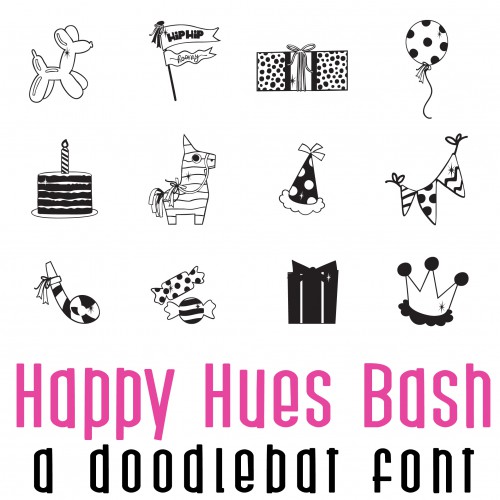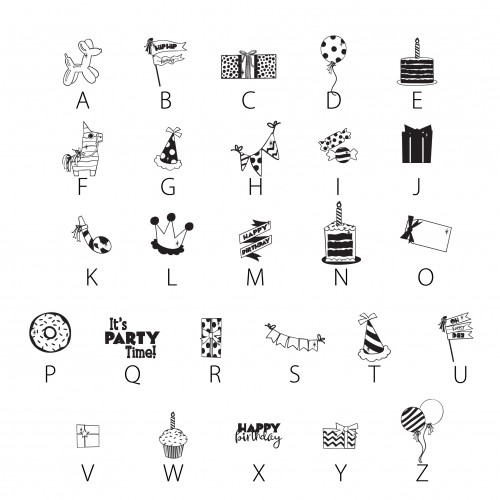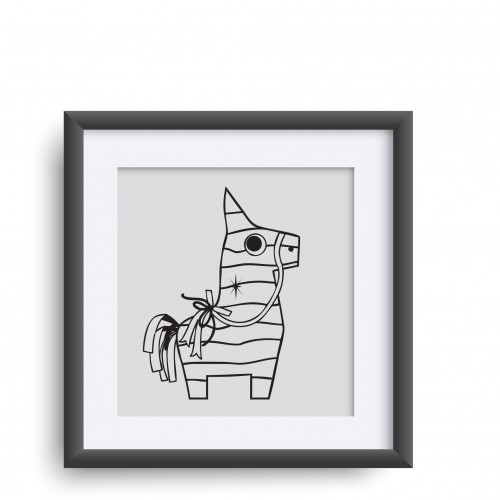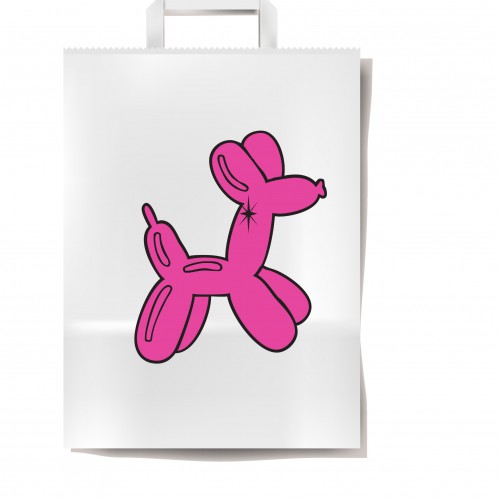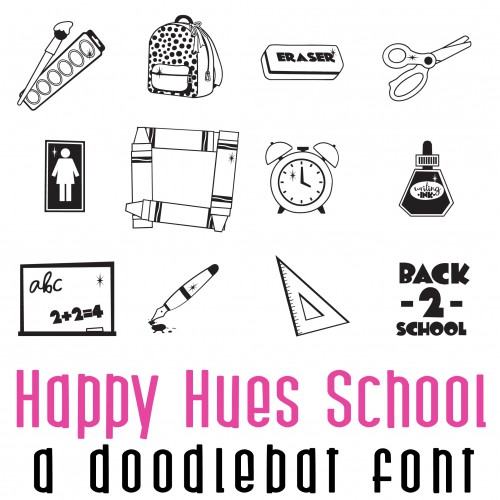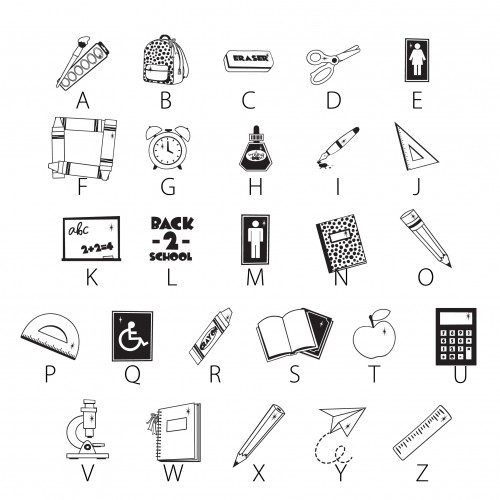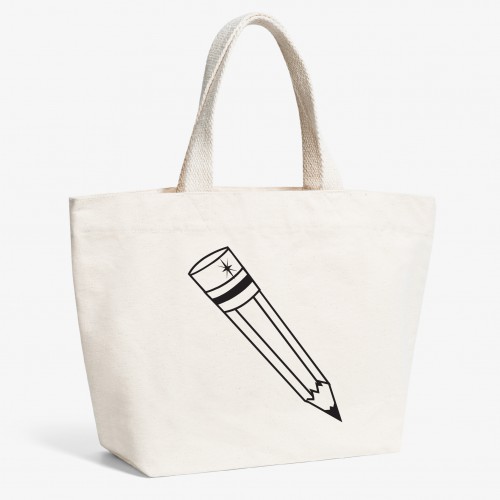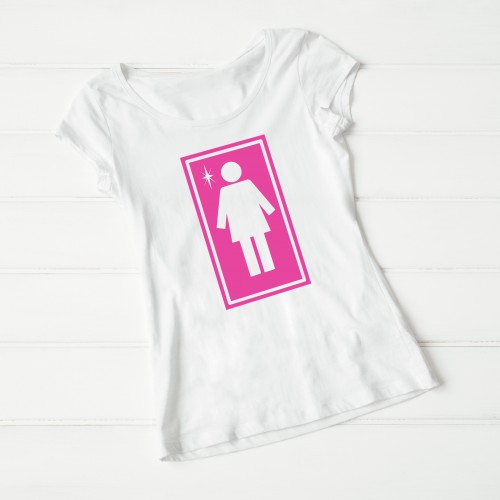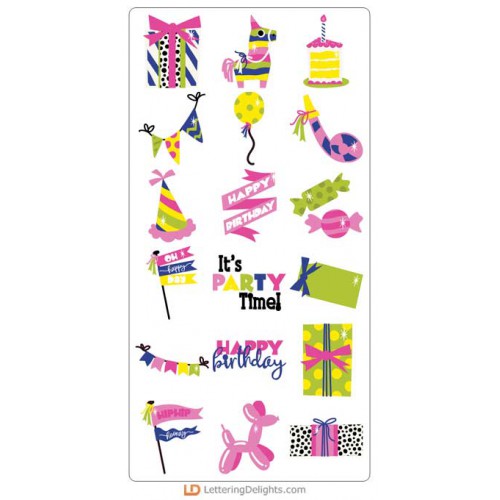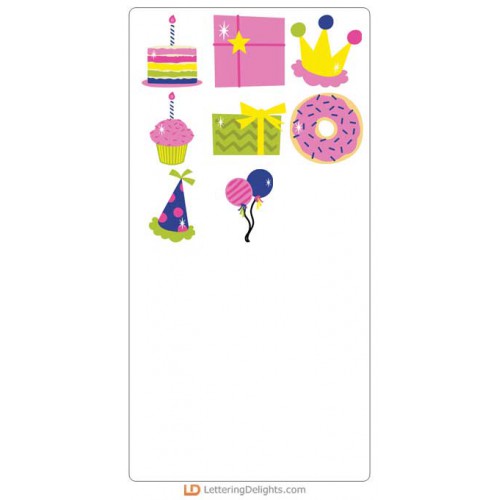
Happy Hues - Big Bundle
This fun collection features whimsical party elements and school supplies, perfect for cards, crafts, gifts, planner stickers, scrap book pages, parties and more!
DB - Happy Hues - Bash - DB
This fun doodlebat font features 26 different whimsical party elements perfect for cards, crafts, gi..
DB - Happy Hues - School - DB
This fun doodlebat font features 26 different whimsical school themed elements perfect for cards, cr..
Happy Hues - Bash - GS
This fun graphic set features 26 different whimsical party elements perfect for cards, crafts, gifts..
Happy Hues - Bash - CS
This fun cuttable graphic set features 26 different whimsical party elements perfect for cards, craf..
Happy Hues - School - GS
This fun graphic set font features 26 different whimsical school themed elements perfect for cards, ..
Happy Hues - School - CS
This fun cuttable graphic set font features 26 different whimsical school themed elements perfect fo..
Happy Hues - CP
Create fun party themed cut projects perfect for gift giving. Includes darling gift bag, gift cards,..
Happy Hues - AL
This fun alphabet coordinates with our Happy Hues Collection...
Happy Hues - PP
This fun paper pack coordinates with our Happy Hues Collection...